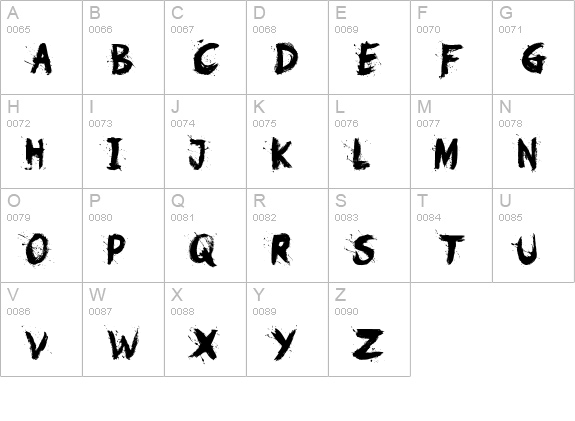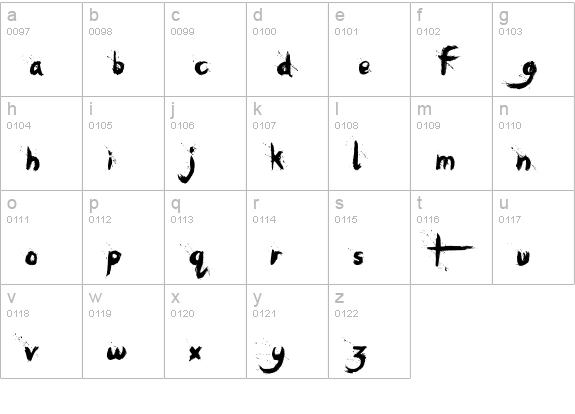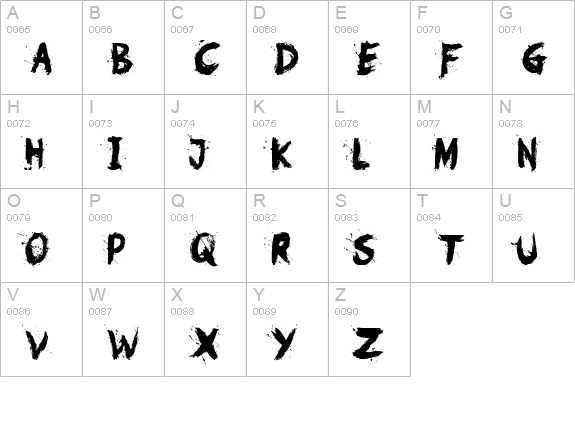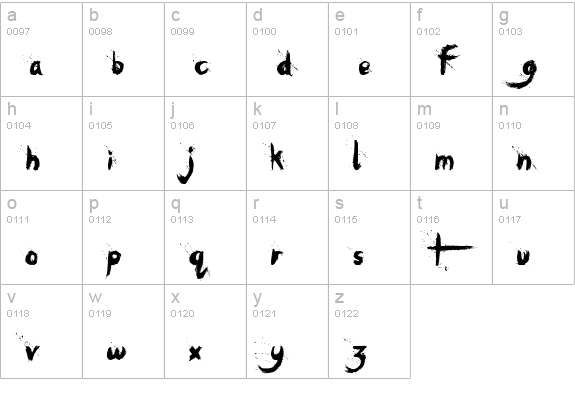
Introducing Paint Splat font, a vibrant and playful typeface that adds a touch of artistic flair to any design project. This unique font is perfect for those seeking a bold and energetic look that captures the essence of creativity. With its splattered texture and dynamic letterforms, Paint Splat font brings a sense of excitement and liveliness to any text. One of the best features of Paint Splat font is that it is available for free download at FontsMarket.com. This means that you can easily access and utilize this font in your designs without any cost. Whether you are a professional graphic designer looking to add a fun element to your latest project or a DIY enthusiast wanting to spice up your personal creations, Paint Splat font is the ideal choice. With its wide range of characters and versatile design, Paint Splat font is suitable for various design purposes. From eye-catching headlines to attention-grabbing posters, this font will surely make your text stand out. Its irregular and splattered appearance gives it a handcrafted feel, adding a touch of authenticity and uniqueness to your designs. Paint Splat font is not only visually captivating but also highly legible, making it a practical choice for both print and digital projects. Its well-defined letterforms ensure that your message is conveyed clearly and effectively, while its playful style adds a delightful twist to your text. So why wait? Download Paint Splat font for free at FontsMarket.com and let your creativity run wild. Whether you're designing a logo, creating a social media post, or working on a personal project, this font will surely bring a burst of color and excitement to your designs. Don't miss out on this fantastic opportunity to add a touch of artistic charm to your typographic endeavors. Get Paint Splat font today and unleash your creativity like never before.